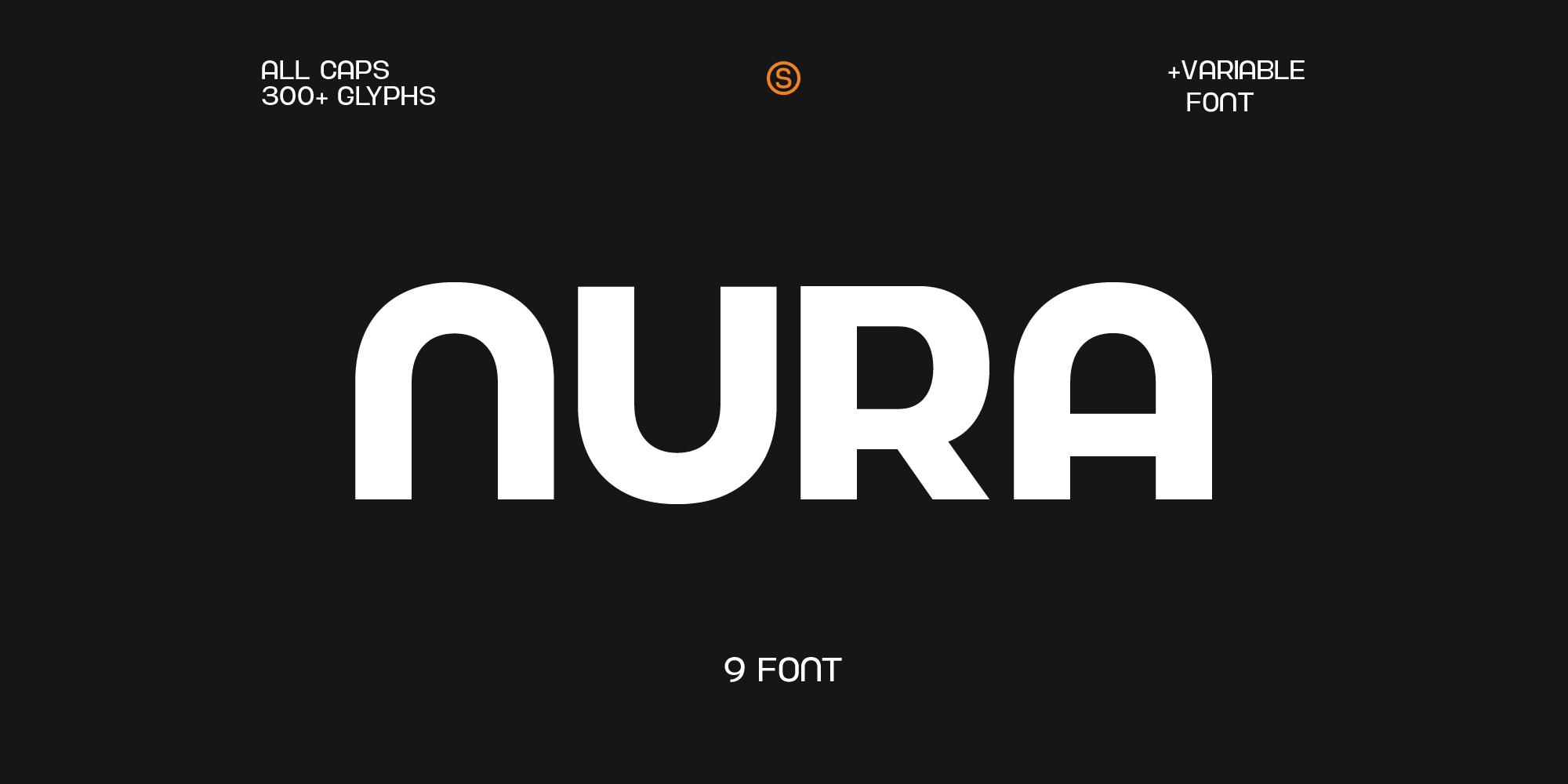
Nura Font is ideal for meditation center branding, wellness spa logos, mindfulness app interfaces, spiritual guidance materials, holistic healing practice signage, and inner peace workshop designs.
Nura Font is exciting because it embodies serene enlightenment and spiritual luminosity, offering designers a transcendent typeface that captures the essence of inner light, divine wisdom, and the radiant beauty of awakened consciousness.
The Nura Font family includes enlightened variations: Nura Light, Nura Regular, Nura Medium, Nura Bold, luminous alternates, and spiritual decorative elements that enhance the font's transcendent character.
Illuminate your designs with Nura Font Free Download, a luminously crafted typeface that brings spiritual radiance and enlightened consciousness to your most transformative wellness design projects. This transcendent font excels in creating inspiring branding for yoga studios, spiritual retreat centers, energy healing practitioners, and consciousness expansion programs that guide souls toward inner awakening and divine connection. The divinely designed letterforms feature flowing curves and harmonious proportions that simulate the gentle glow of inner light and the peaceful radiance of meditative states while ensuring crystal-clear readability across all spiritual applications. Perfect for guided meditation scripts, spiritual book covers, consciousness training materials, and enlightenment workshop programs that need to convey sacred wisdom and transformative healing, this font connects with seekers pursuing spiritual growth and inner illumination. Each character radiates with divine essence, making every spiritual message feel like sacred teachings transmitted through pure light and universal love. Nura Font transforms spiritual communications into luminous blessings that inspire profound transformation and guide wandering souls toward the eternal light of divine consciousness.